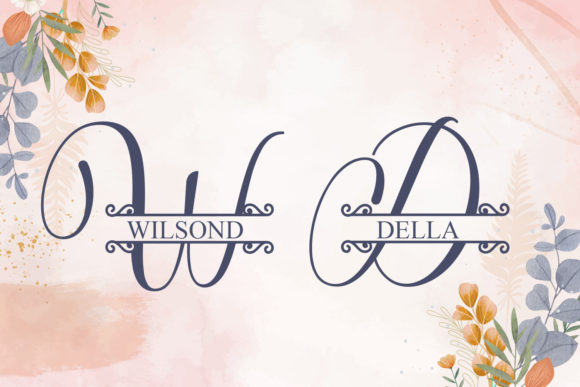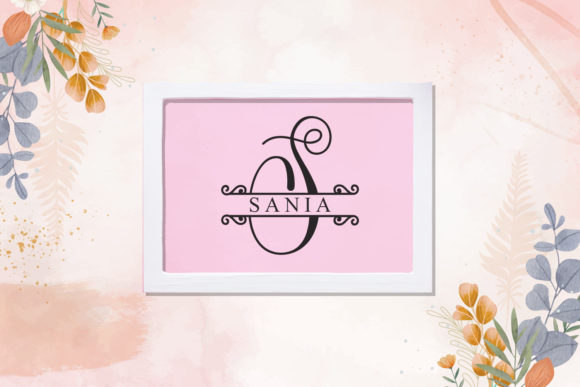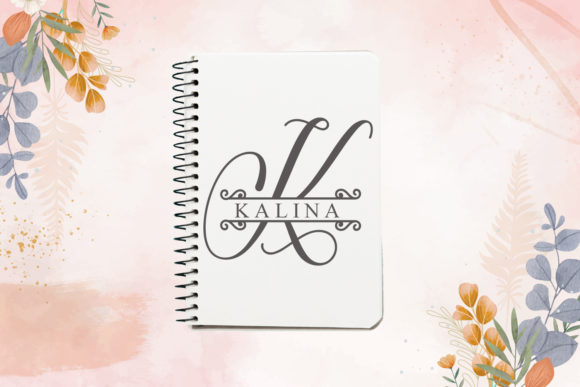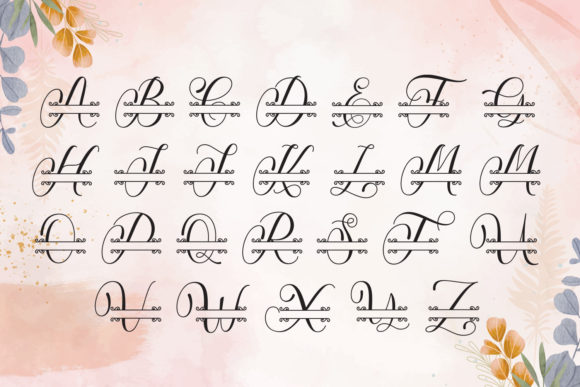
Introducing Evina Monogram Font: The Perfect Addition to Your Romantic Designs
Are you looking for a font that exudes romance and elegance? Look no further than Evina Monogram Font, a dainty and unique decorative font that is sure to elevate your designs to the next level. With its lovely and intricate details, Evina Monogram is the perfect addition to your love letters, wedding invitations, and favorite design ideas.
What Makes Evina Monogram Font So Special?
Evina Monogram Font is a one-of-a-kind decorative font that is designed to add a touch of romance and whimsy to your designs. Its delicate and intricate details make it perfect for a variety of projects, from wedding invitations and love letters to scrapbooking and craft projects. The font’s unique and elegant design ensures that your projects will stand out from the crowd and leave a lasting impression.
Uses for Evina Monogram Font
Evina Monogram Font is a versatile font that can be used for a wide range of projects, including:
- Wedding invitations and stationery: Add a touch of romance and elegance to your wedding invitations and stationery with Evina Monogram Font.
- Love letters and journals: Make your love letters and journals extra special with the beautiful and intricate details of Evina Monogram Font.
- Scrapbooking and paper crafting: Use Evina Monogram Font to add a personal touch to your scrapbooking and paper crafting projects.
- Signs and banners: Create beautiful signs and banners with Evina Monogram Font that are perfect for weddings, parties, and other special events.
Why Designers and Crafters Love Evina Monogram Font
Designers and crafters love Evina Monogram Font for its unique and elegant design. The font’s delicate details and intricate patterns make it perfect for adding a touch of romance and whimsy to any project. Additionally, the font’s versatility makes it suitable for a wide range of projects, from digital designs to handmade crafts.
Tips for Using Evina Monogram Font
Here are a few tips for using Evina Monogram Font in your designs:
- Pair it with other fonts: Evina Monogram Font pairs well with other fonts, such as script fonts and serif fonts. Experiment with different font combinations to find the perfect look for your project.
- Use it sparingly: Evina Monogram Font is a decorative font, so it’s best to use it sparingly. Use it for headings, titles, and other important text to add a touch of elegance and sophistication.
- Experiment with colors: Evina Monogram Font looks beautiful in a variety of colors, from soft pastels to rich jewel tones. Experiment with different colors to find the perfect look for your project.
Evina Monogram Font is a beautiful and unique decorative font that is perfect for adding a touch of romance and elegance to your designs. With its delicate details and intricate patterns, it’s suitable for a wide range of projects, from wedding invitations and love letters to scrapbooking and craft projects. Whether you’re a designer or a crafter, Evina Monogram Font is sure to become a favorite in your font collection.